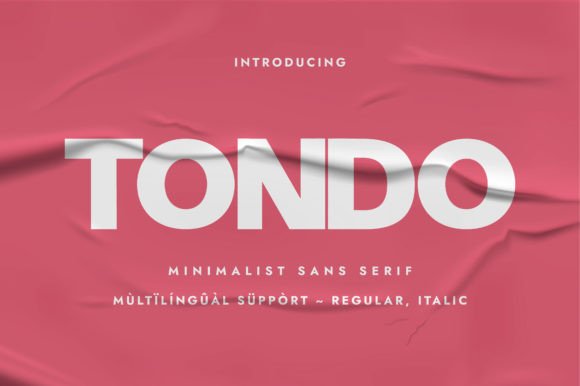
Introducing Tondo Font, the bold and beautiful sans serif font that will transform your creative projects into captivating masterpieces. Crafted by the skilled hands of Minimalistartstudio, Tondo is not just a font; it's an artistic expression that speaks volumes.
With its strong and distinct character, Tondo stands out effortlessly, demanding attention and leaving a lasting impression. Whether you're designing packaging, creating logos, building brands, crafting personal projects, or designing websites, Tondo is your perfect companion.
Imagine your designs adorned with Tondo's bold lines and striking presence. Your packaging will leap off the shelves, your logos will command attention, your branding will exude confidence, your creations will shine with originality, and your web designs will captivate audiences.
Tondo is the perfect choice for those seeking a font that is both aesthetically pleasing and highly functional. Its clean lines and sharp angles lend themselves seamlessly to flat UI design, creating user interfaces that are not only visually appealing but also intuitive and easy to navigate.
With Tondo as your font of choice, you'll find yourself immersed in a world of creative possibilities. Its versatility knows no bounds, allowing you to effortlessly elevate your designs and create projects that resonate with your audience.
So, why settle for ordinary fonts when you can embrace the extraordinary? Join the ranks of creative professionals who have discovered the power of Tondo Font. Unleash your imagination and embark on a journey of design excellence with Tondo as your trusted guide.